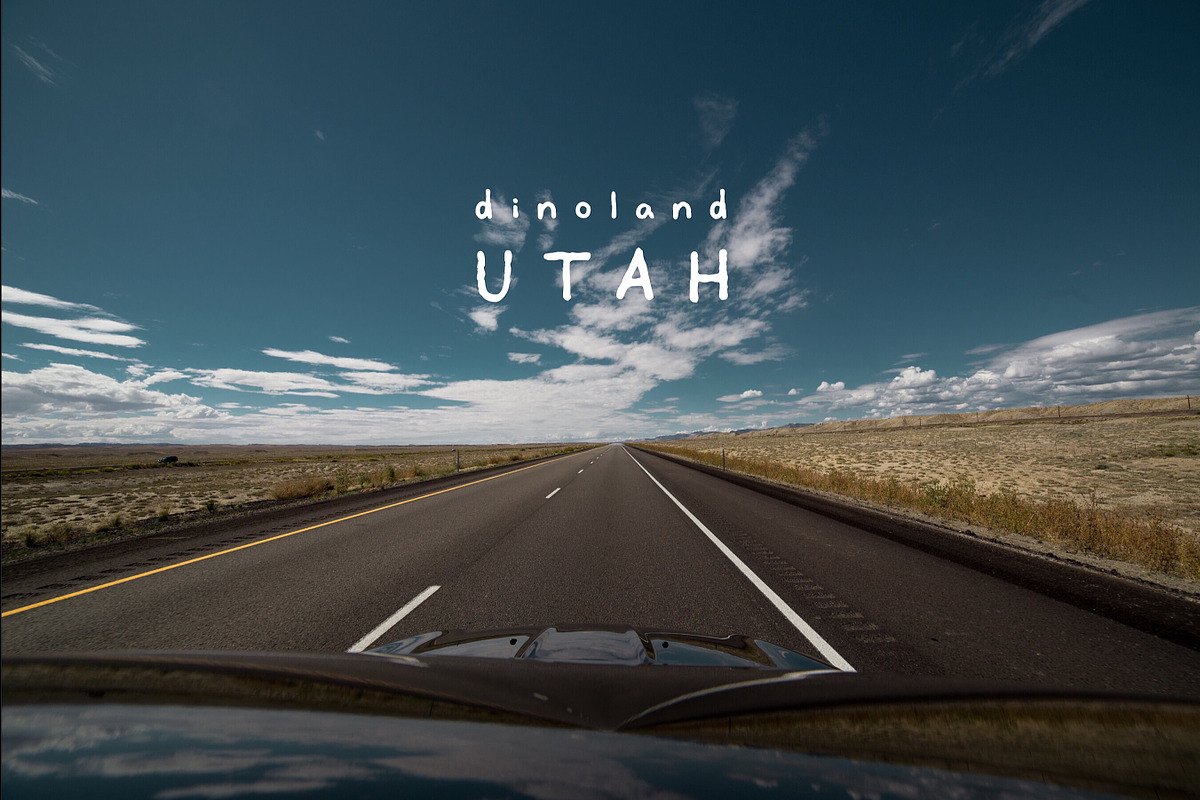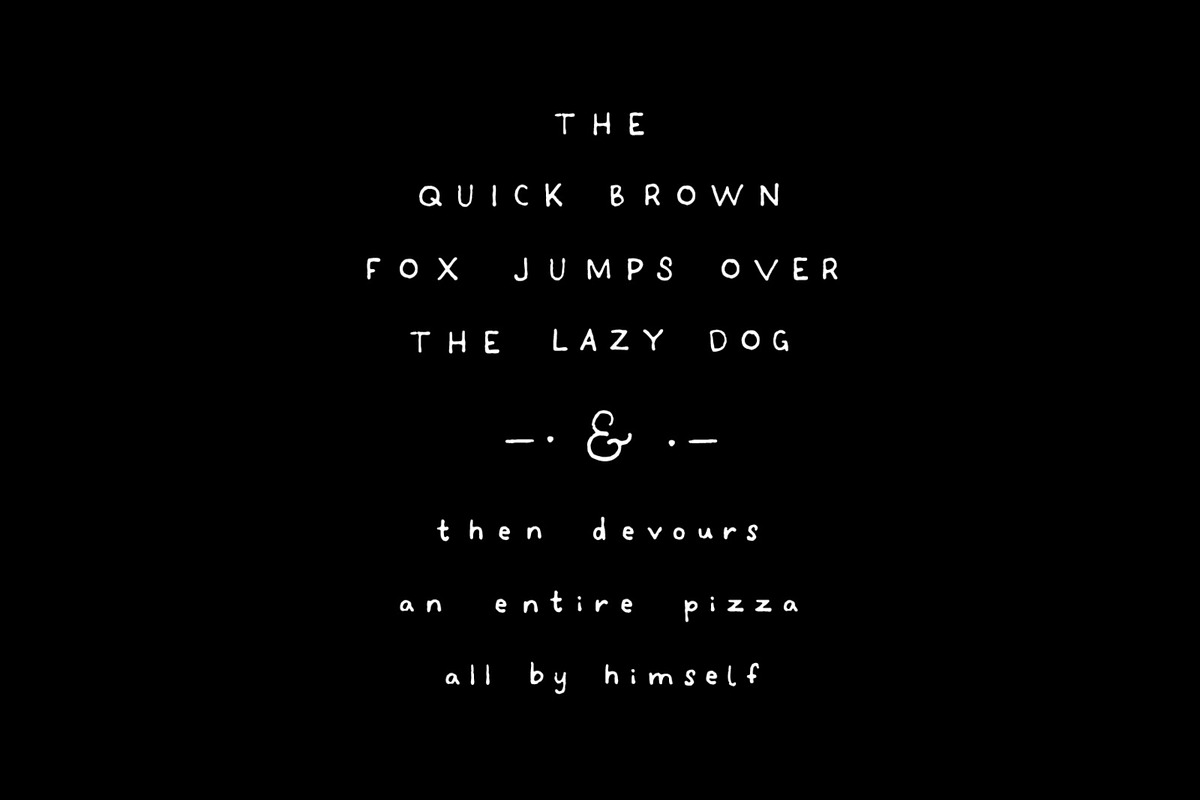
Handyman Font
Handyman Font by ariwoeste is a font selected for branding, posters, packaging, typography.
Why Handyman Font is worth a look
Handyman Font by ariwoeste fits naturally into Branding, posters, packaging, typography.